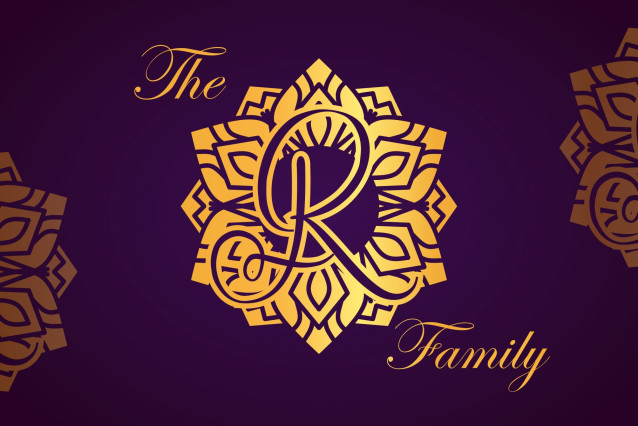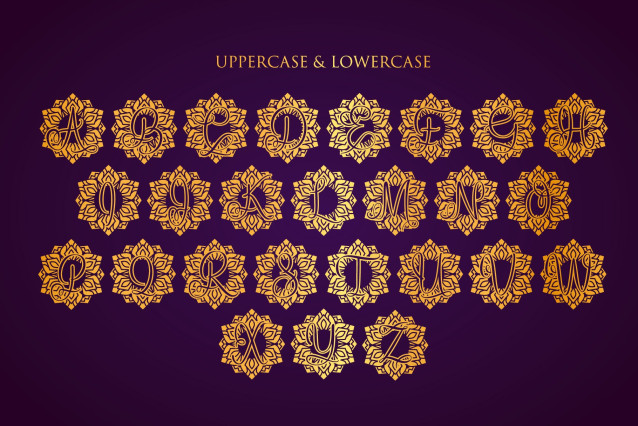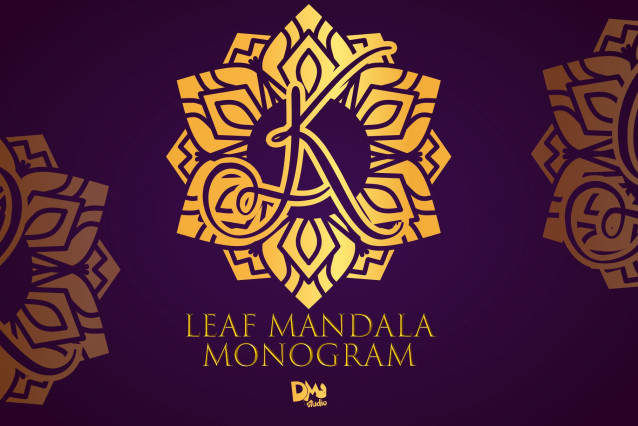
Leaf Mandala Monogram Font
Leaf Mandala Monogram Font is a beautifully detailed monogram font that seamlessly blends delicate leaf motifs with intricate mandala designs. Inspired by the beauty of nature and the harmony of organic patterns, this font is ideal for botanical branding, eco-conscious packaging, wedding invitations, holistic wellness projects, and handmade product designs. It offers a fresh and elegant touch that brings a sense of life and serenity to any creative work.